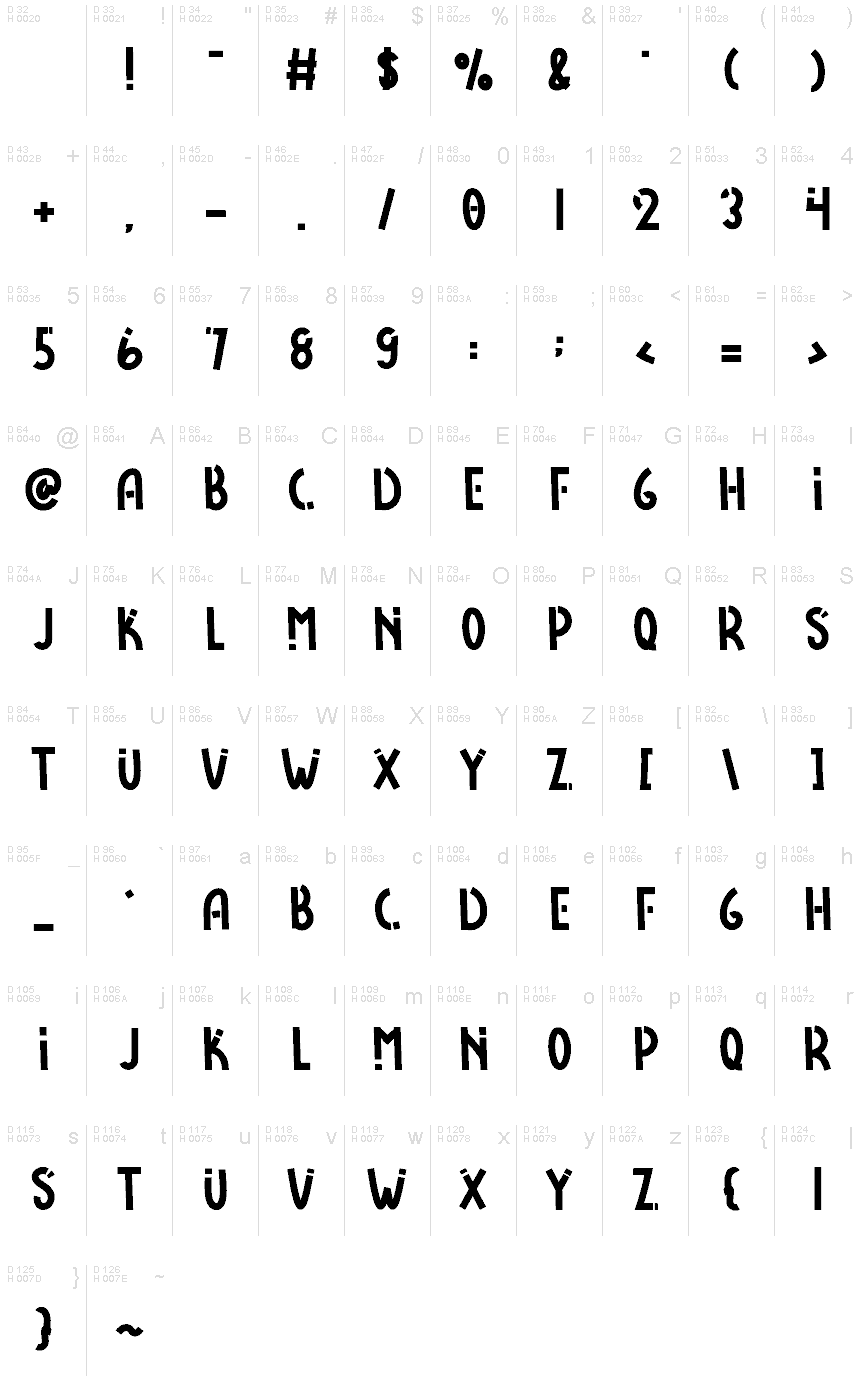
Work Krow
Work Krow font by Hamsah is a quirky and retro display font with a casual vibe. It features an artistic flair and charmingly unorthodox design which attracts attention effortlessly. Energetic and lighthearted, this cartoon-style font can capture everyone’s attention anytime you decide to use it.
The free display font is perfect for books for kids, t-shirt designs, social media posts, product packaging, posters, invitations or even handwritten quotes – something entirely different than what others have already seen before!